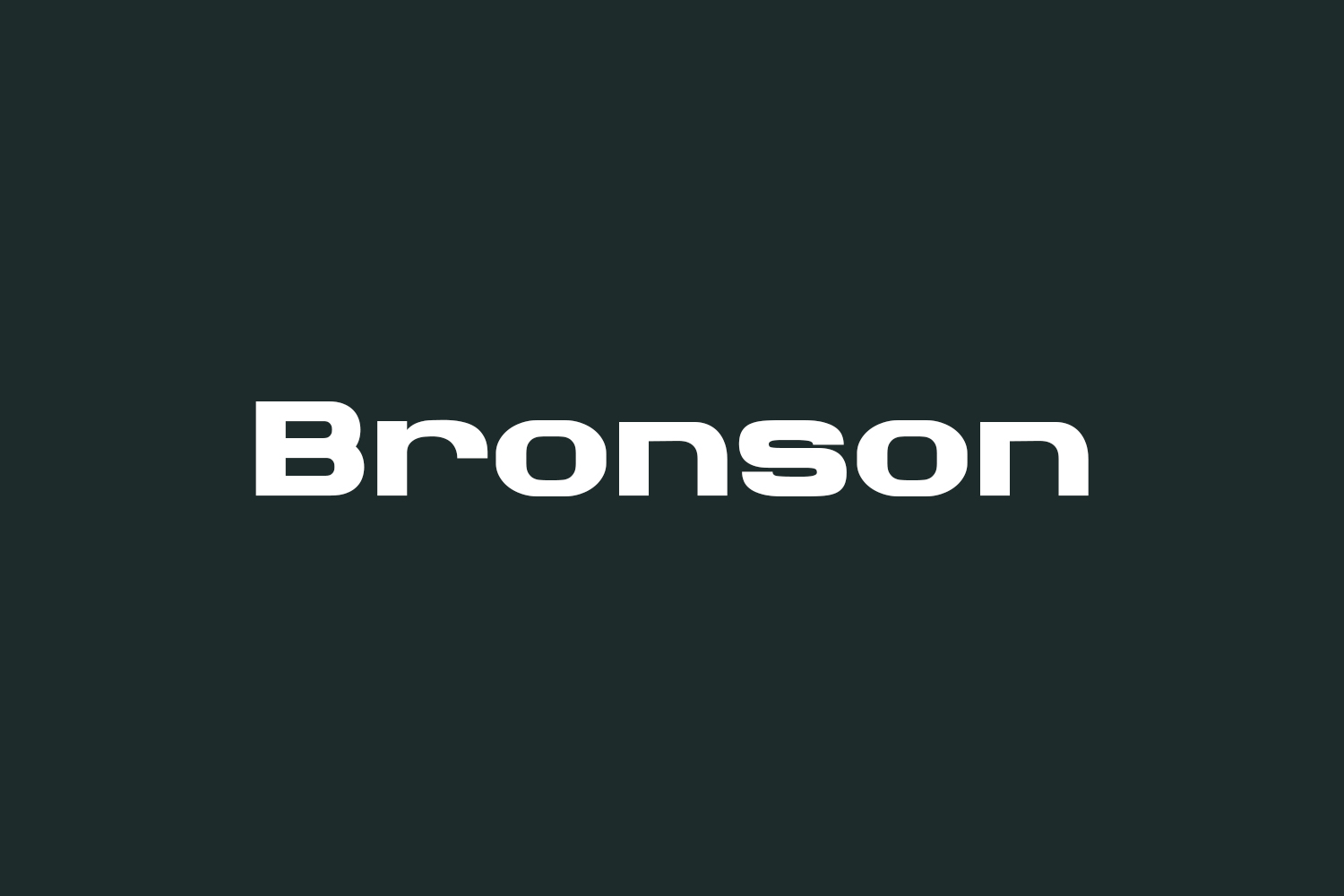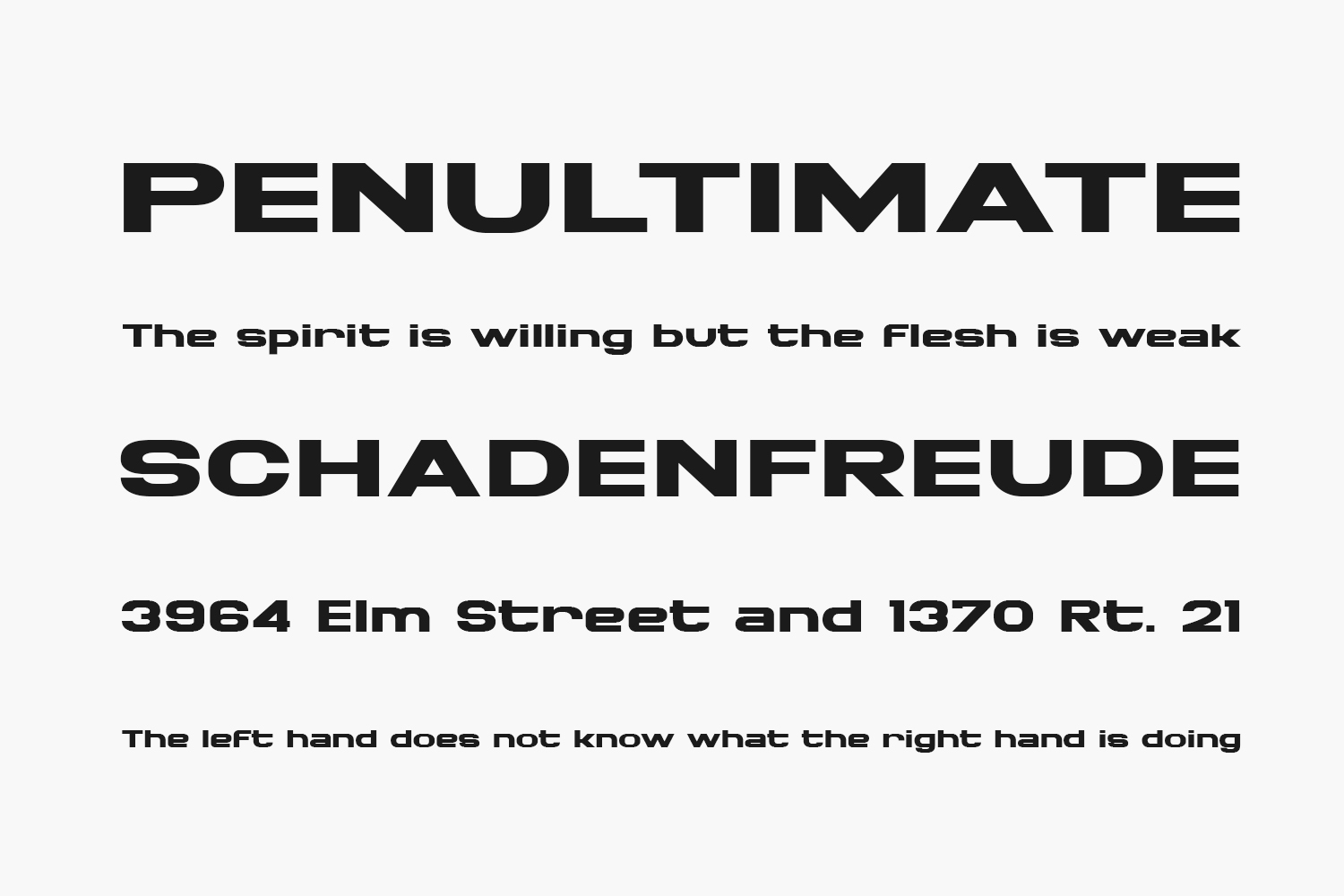
Bronson Free Font is a cool and modern sans serif font. Whatever the topic, this font will be a wonderful asset to your font library, as it has the potential to enhance any creation. Bronson Free Font is free for personal use only. Please purchase the full version for commercial use.
Designed by Ronny Studio